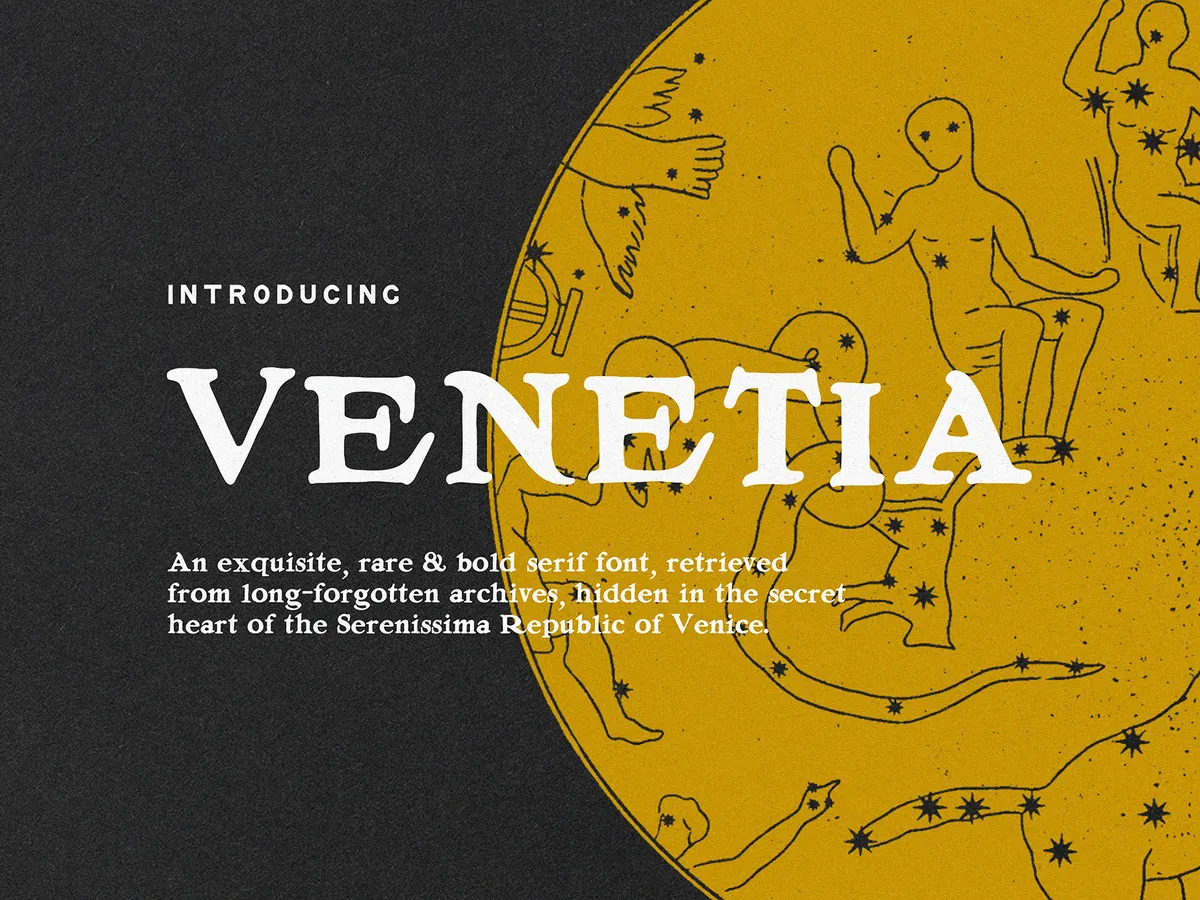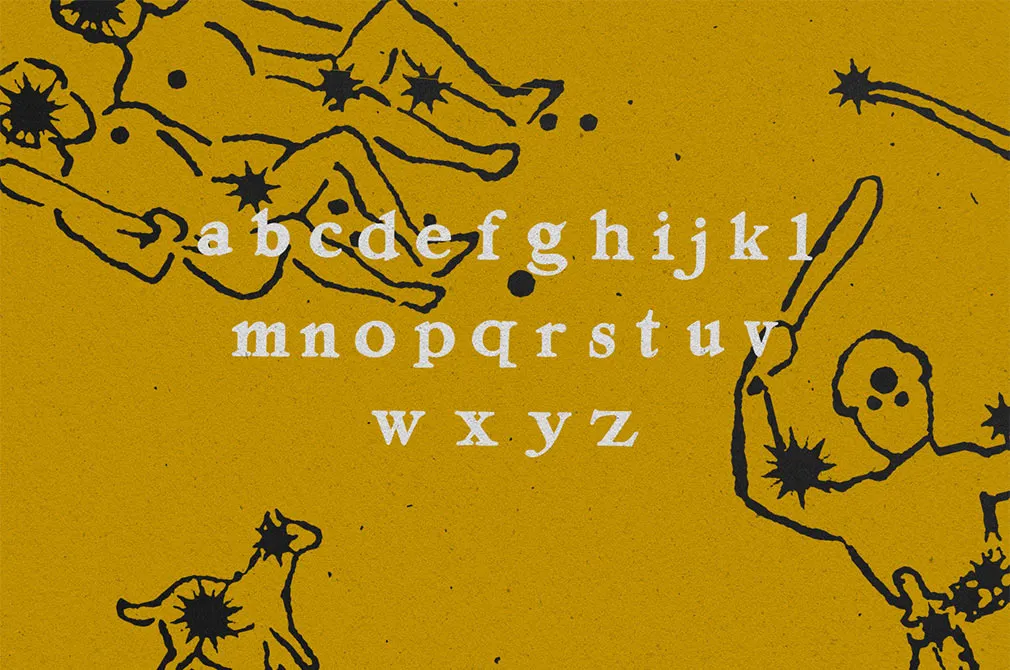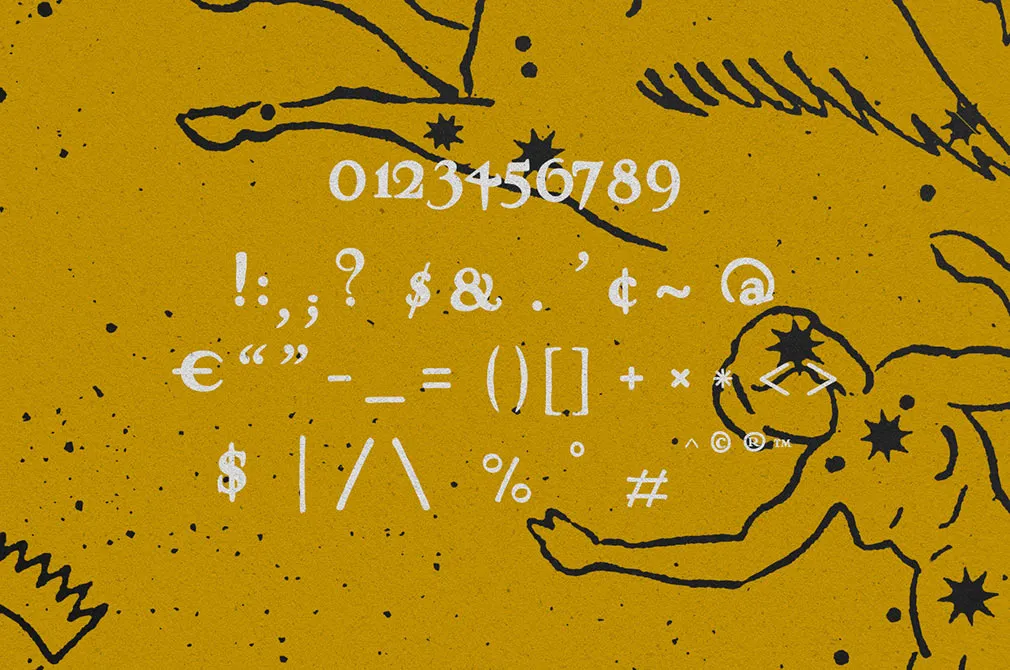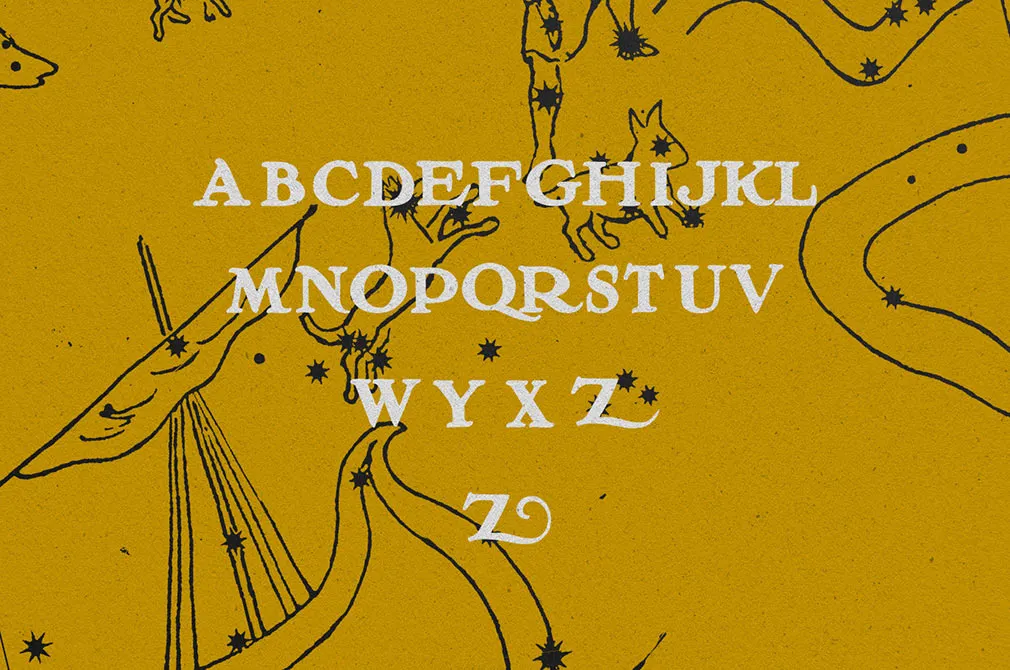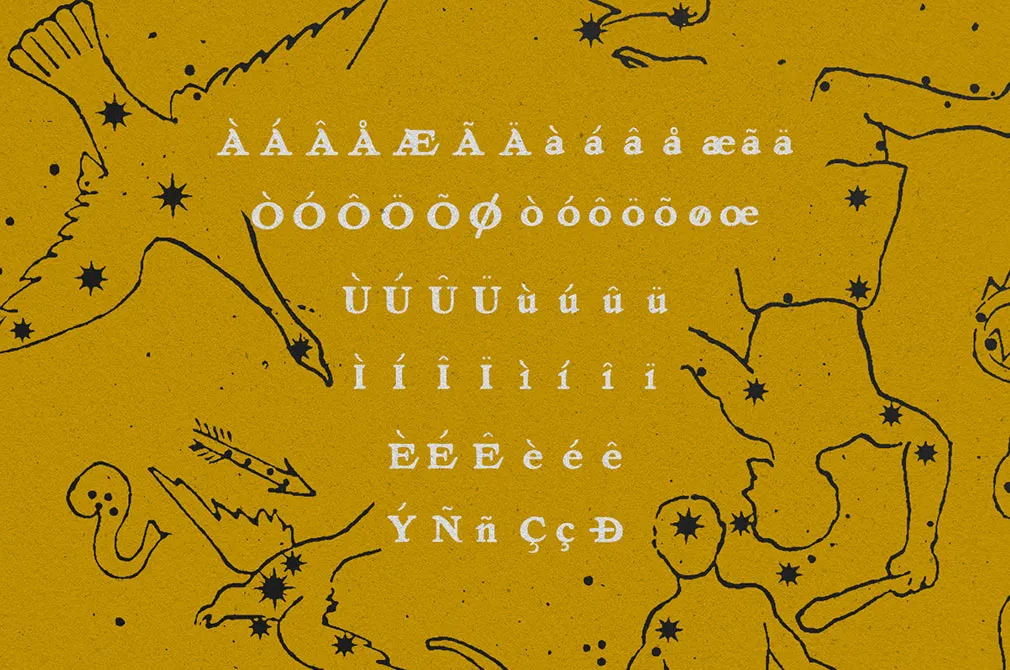
Venetia Serif Font
You're looking at the serif font, inspired by the Republic of Venice: that's where the name comes from, actually. It's time to add something refreshing to your collection of display typefaces!
The font with a whole historic background has the multilanguage support and the set of numerals, included to it. Exquisite, rare & bold serif, retrieved from long-forgotten archives, hidden in the secret heart of Venice. Venetia will look amazing in your logo designs, invitations, and labels. It's just perfect to deliver unique vibes to your digital products and websites!